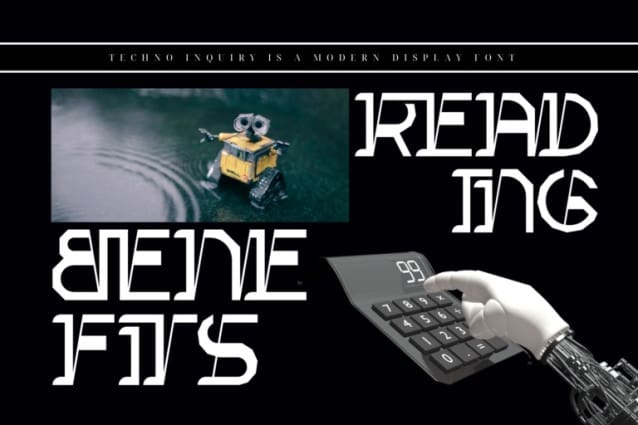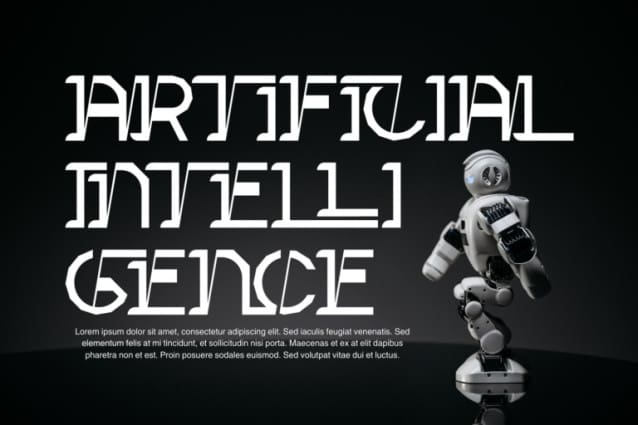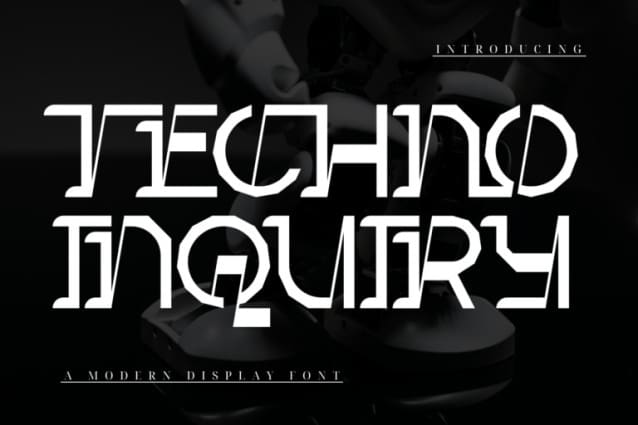
Techno Inquiry Font
Techno Inquiry Font – Modern Serif Futuristic Font, a font that embodies the perfect blend of sleek modernity and cutting-edge technology. Its unique, thin, futuristic serif shape makes it ideal for a range of contemporary designs, from tech interfaces to cyberpunk posters and high-fashion statements. With its clean, sharp lines and innovative design, It’s perfect for futuristic and forward-thinking projects that need a modern edge.
Techno Inquiry was built with OpenType features and includes 100 ligatures, alternate, numbers, punctuation, and it also supports other languages.
AC AD AL AN AR AS AT AU AV BE CA CE CH CO CT DE DI EA EC ED EE EL EM EN EP ER ES ET FE FO FR GE HA HE HI HO IE IC IL IN IO IR IS IT JU KE LA LE LI LL LO LY MA ME MI NC ND NE NG NO NT NS OC OF OM ON OO OP OR OT OU OW PA PR RA RD RE RI RO RS RT SE SH SI SO SS ST TA TE TH TI TO TR TT UM UN UR VE WI WO